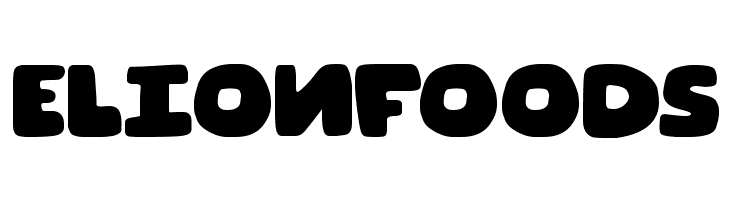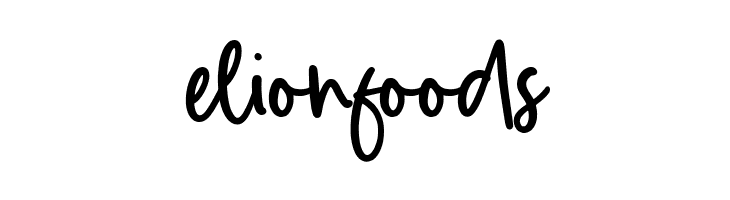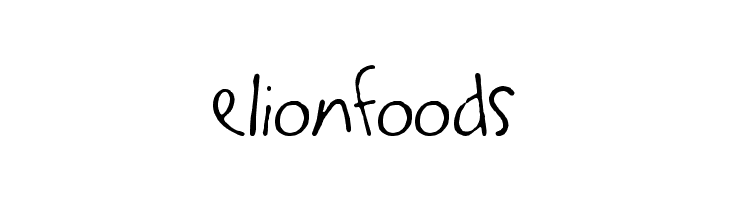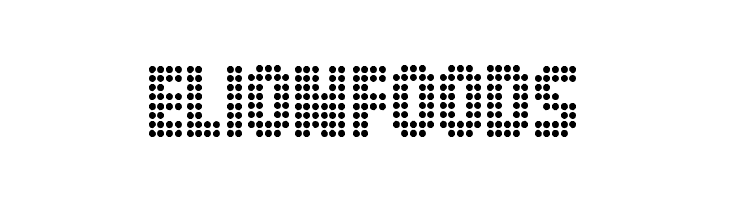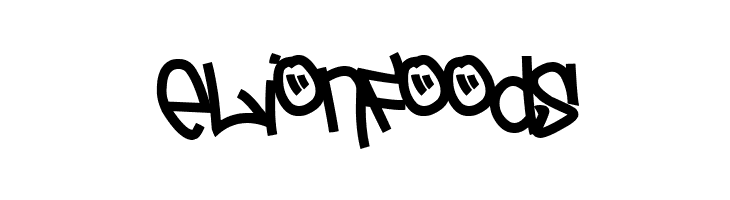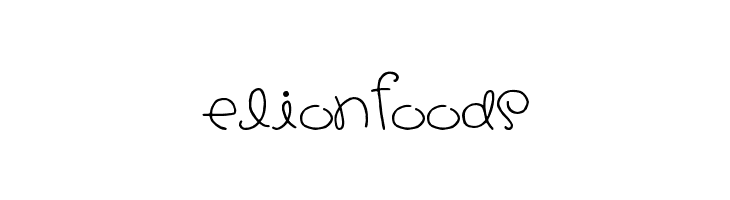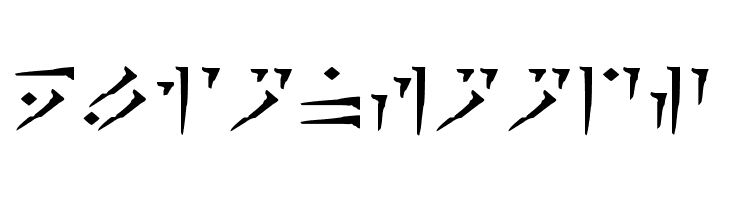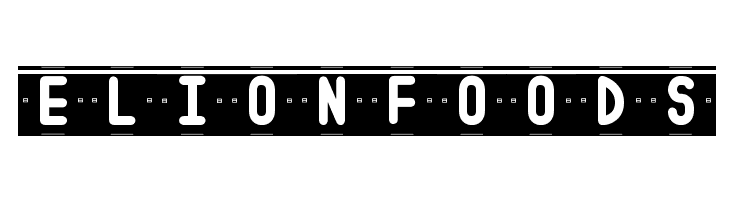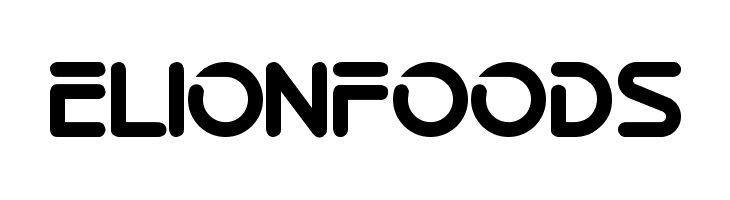
A bold, geometric font with sharp angles and a modern industrial style.
A bold, geometric font with strong, angular lines and a blocky appearance.
A bold, graffiti-inspired font with dynamic and angular strokes.
A geometric, angular font with a modern, futuristic aesthetic.
A bold, geometric font with wide, square-shaped characters and a modern aesthetic.
A bold, hand-drawn font with a rugged, adventurous style and distressed texture.
A rugged, textured font with a natural, adventurous feel, resembling wood or bark.
A playful, bold font with rounded strokes and whimsical shapes.
A display font where each character is a different window illustration.
A graceful script font with fluid, interconnected cursive strokes.
A bold, distressed font with a gothic, grunge-like style.
A lively, expressive script font with bold, cursive strokes and playful loops.
A modern, elegant script font with a flowing, handwritten style.
A casual, handwritten font with a playful and informal style.
A bold, flowing script font with a lively and elegant style.
A playful, spooky font with jagged edges and a hand-drawn look.
A bold, decorative font with medieval-inspired serifs and ornate details.
A playful, hand-drawn font with a sketch-like, textured appearance.
A playful, hand-drawn outline font with wobbly, uneven lines.
A bold, brushstroke font with dynamic and expressive characters.
A bold, geometric font with a modern and industrial style.
A bold, rugged font with a hand-carved, vintage woodcut style.
A bold, brush-textured font with a rugged and dynamic style.
A playful, 3D hand-drawn font with a bold, cartoonish style.
A bold, brush-style font with a hand-drawn, energetic appearance.
A bold, handwritten font with a playful and dynamic style.
A bold, flowing script font with elegant curves and a dynamic slant.
A collection of vintage-style illustrative characters depicting literary themes.
A playful, rope-like decorative font with bold, rounded characters.